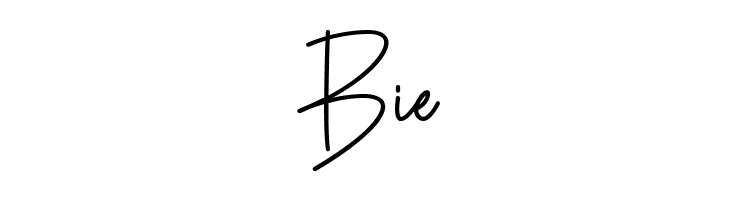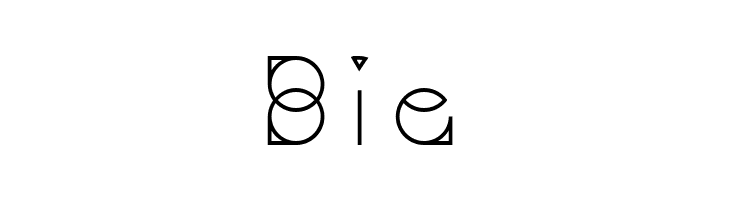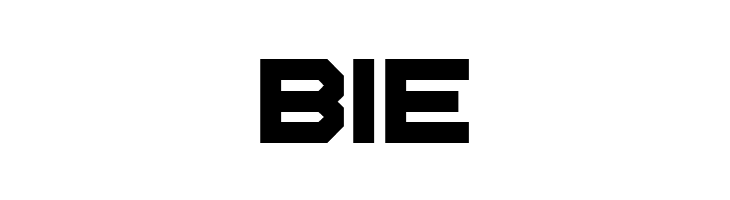
( Bou Fonts - Agustín Bou )
A tall, narrow, and modern font with consistent stroke width and elegant design.
( Brave - ngulik BRAVE )
A bold, blackletter-inspired font with intricate, gothic details.
( Brave - ngulik BRAVE )
A bold, expanded blackletter-style font with intricate serifs and gothic flair.
( Barland - creativemarket.com/Barland )
A flowing, elegant script font with calligraphic flourishes.
( Attype Studio - Fadli Ramadhan Iskandar - thehungryjpeg.com/attype-studio/ )
A playful and whimsical script font with flowing, interconnected letters.
( Bagus Belo Prayogo - biangwarna.tumblr.com )
A modern geometric font with thin lines and angular shapes.
( Chequered Ink - chequered.ink/ )
A bold, geometric font with angular, industrial design.
( Chequered Ink - chequered.ink/ )
A bold, geometric font with a futuristic and segmented design.
( Caveras - Cliff Modes - caveras.net )
A pixelated, monospaced typeface with a retro digital aesthetic.
( Ahmad Khaidir - creativemarket.com/Dierstudio )
A playful, handwritten font with tall, narrow letters and a casual, dynamic style.